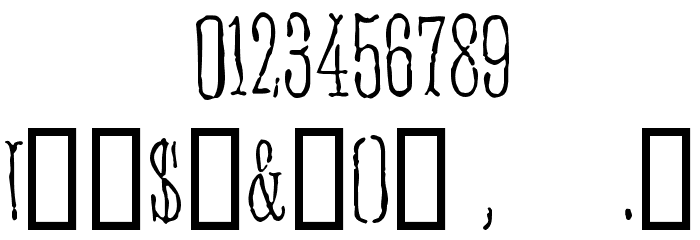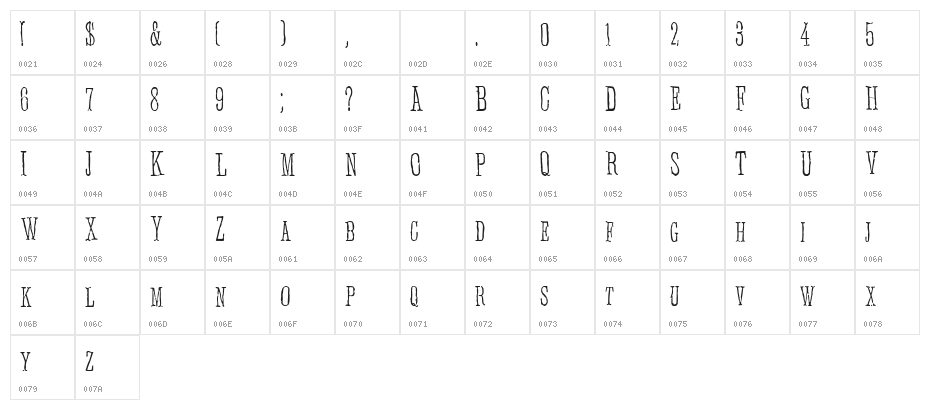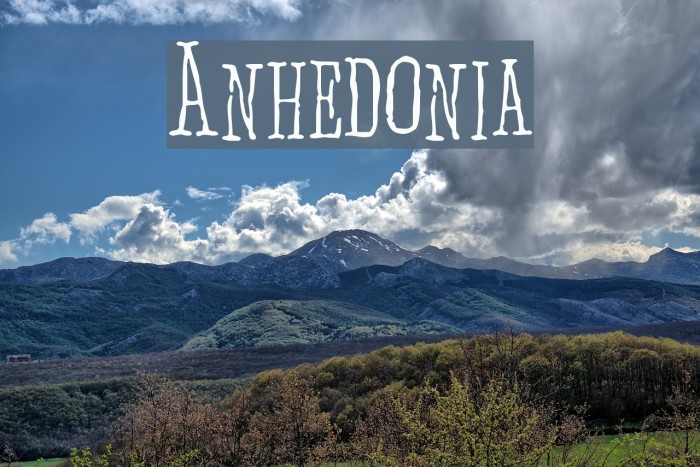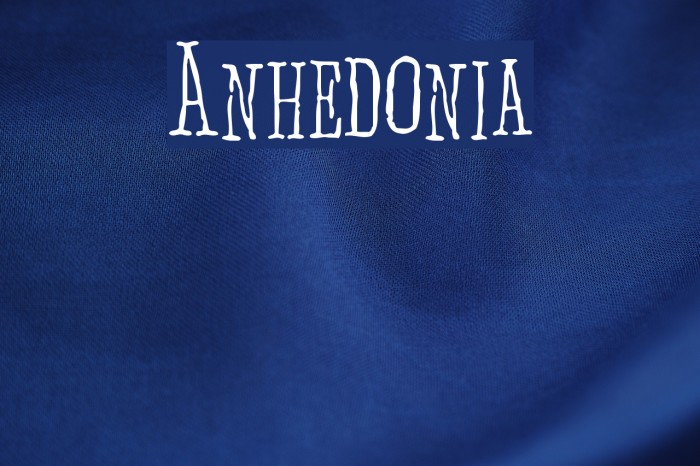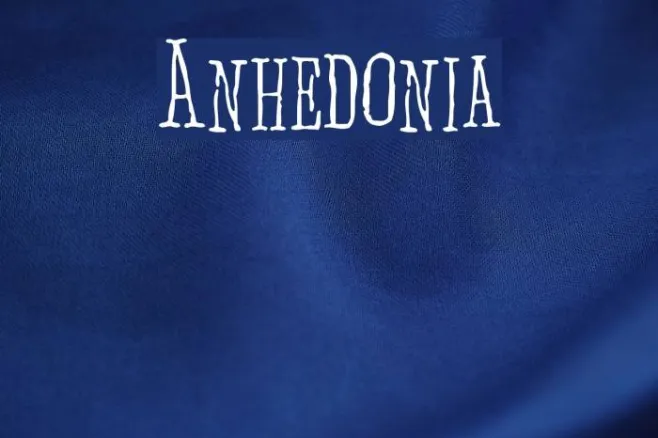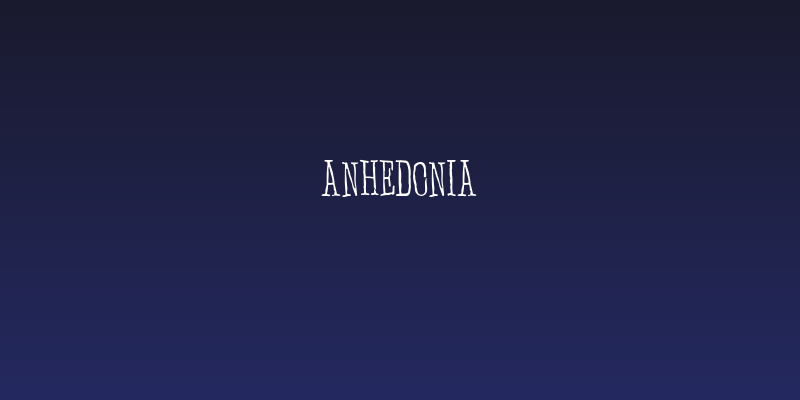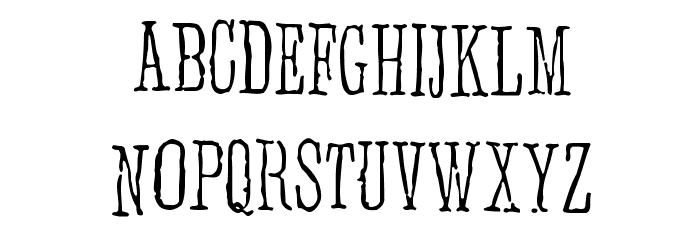
Anhedonia Font
Anhedonia Description
This font features a distinctive, vintage style with a slightly distressed appearance, reminiscent of old typewriter or letterpress prints. The uppercase letters are tall and narrow, with subtle serifs that add a touch of elegance. The lowercase letters maintain a consistent style, complementing the uppercase with their own unique flair. Numbers are bold and clear, ensuring readability. The special characters are designed to match the overall aesthetic, making them suitable for decorative purposes. This font's unique character makes it ideal for projects that require a touch of nostalgia or a vintage feel.
| Proposed Projects | Ideal for vintage-themed posters, book covers, branding, and packaging designs. |